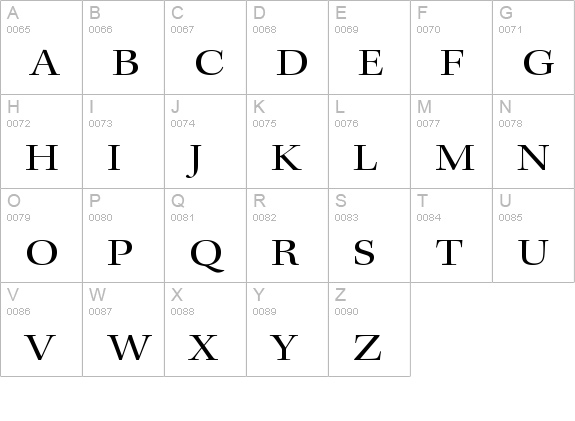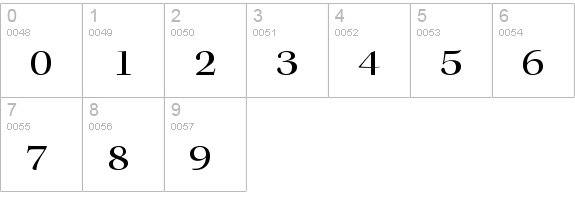
Kepler Std Extended Subhead Font Details
Kepler Std Extended Subhead is a distinctive, extended-width variant in the Kepler typeface family \xE2\x80\x94 well suited to design and typography projects.
Kepler Std Extended Subhead font is a stunning typeface that exudes elegance and sophistication. With its elongated letterforms and graceful curves, this font is perfect for adding a touch of refinement to any design project. This extended subhead variant of Kepler Std offers additional versatility and impact, making it ideal for headings, subheadings, and other prominent elements in your designs. The elongated proportions of the characters add a sense of drama and grandeur, while the subtle variations in stroke width create a harmonious balance between readability and visual appeal. One of the best aspects of Kepler Std Extended Subhead font is that it is available for free download at FontsMarket.com. This means that you can effortlessly enhance your designs with this exceptional typeface without having to worry about any additional costs. Whether you are working on a personal project or a professional assignment, this font is a valuable asset that will elevate your design to new heights. The versatility of Kepler Std Extended Subhead font allows it to seamlessly blend into a wide range of design styles and themes. Whether you are creating a luxurious wedding invitation, a sleek corporate brochure, or a captivating magazine layout, this font will effortlessly adapt to your needs and enhance the overall visual impact of your design. With its timeless elegance and exceptional legibility, Kepler Std Extended Subhead font is a must-have for any designer or typographer. Its expressive letterforms and refined aesthetics make it a valuable addition to your font library. Download this font for free at FontsMarket.com and unlock its full potential to create stunning designs that leave a lasting impression.